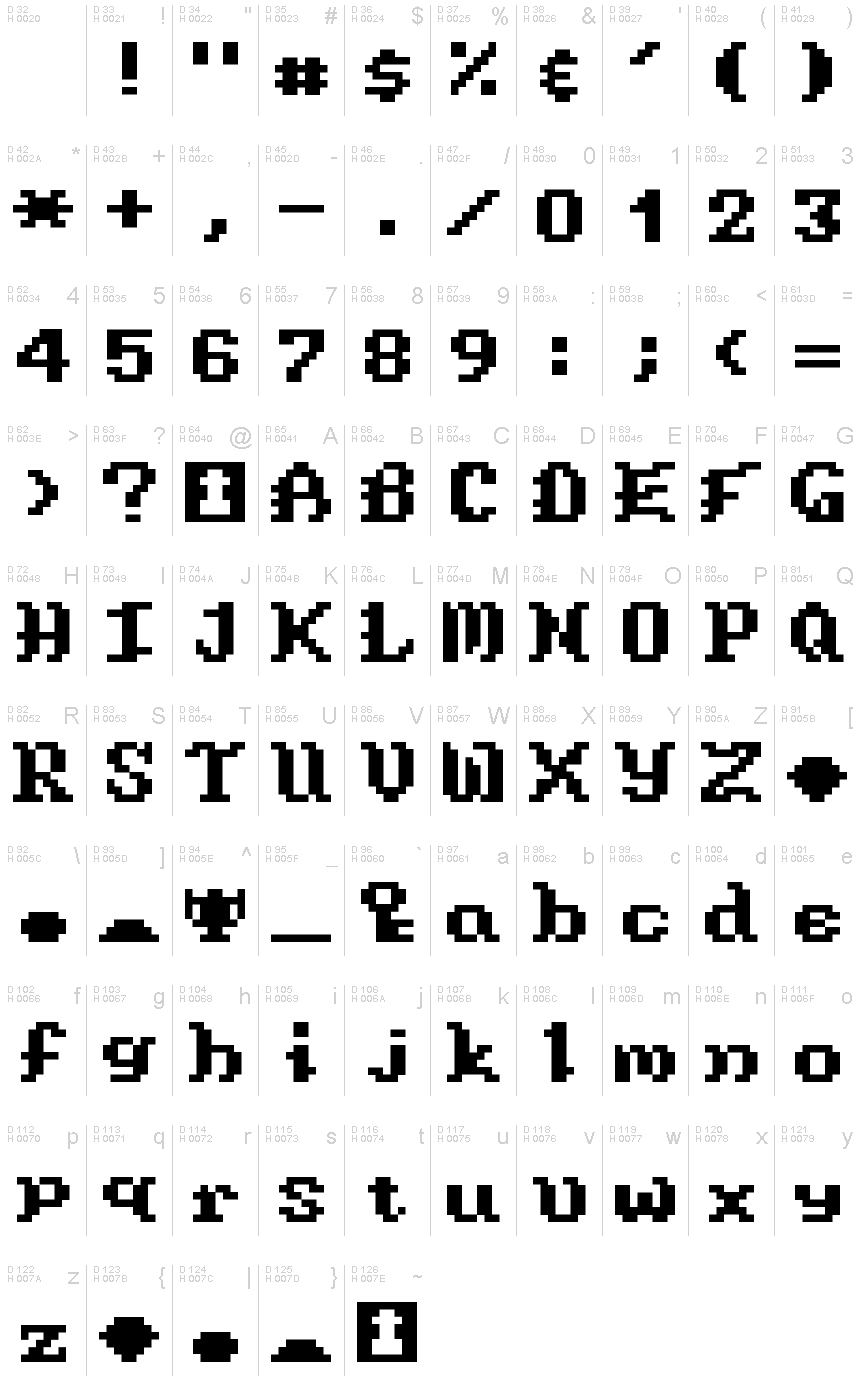
Wizard Regular
“Wizard” is based on “Wizard Mono” by “Omegaville” (http://fontstruct.com/fontstructors/show/358894/omegaville)
Designer description: Wizard, platform game for the Commodore 64. This font replicates its pixelled medieval character set at its usual size. After first doing a monospaced version, cloned it to make a proportional font and have tried to set reasonable kerning of character pairs. Some redefined characters in the game also appear here...